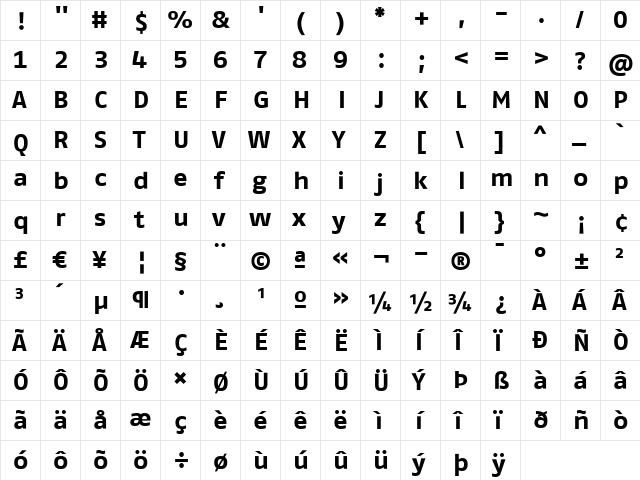
FagoExTf Bold
Design Context for FagoExTf Typeface
FagoExTf is a composed and adaptable typeface that performs quietly and consistently across a wide range of design contexts. The heavy weight commands attention and anchors typographic hierarchies.